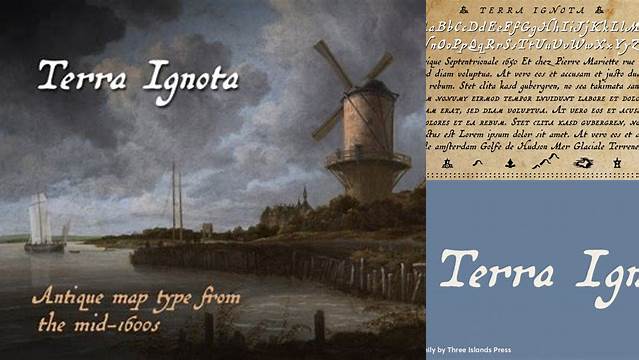
Terra Ignota Font: Download For Free & Unleash Creativity
Hey design enthusiasts! Ever stumbled upon a font that just screams a certain vibe, making your projects instantly cooler? Well, let me introduce you to Terra Ignota font, a typeface that’s been making waves in the design community. If you’re on the hunt for a font that’s both unique and versatile, and, guess what, Terra Ignota font free download options are out there, you’re in for a treat! This font isn't just a bunch of letters; it’s a tool that can elevate your branding, web designs, posters, and so much more. Let’s dive deep into why this font is a must-have and how you can get your hands on it.
Exploring the Allure of Terra Ignota Font
The world of typography is vast and exciting, and finding that perfect font can feel like discovering hidden treasure. The Terra Ignota font is precisely that kind of discovery for many designers. Its name, Latin for “unknown land,” hints at its adventurous and exploratory nature, making it ideal for projects that aim to evoke a sense of mystery, discovery, or even a touch of the fantastical. When you first encounter this font, you’ll likely notice its distinct character – perhaps sharp serifs, unexpected curves, or a bold presence that commands attention. This uniqueness is what sets it apart from the more common, overused fonts. It’s the kind of typeface that makes people pause and ask, “What font is that?” And that, my friends, is the power of distinctive typography. Whether you're designing a logo for a startup exploring uncharted territories, creating a poster for a science fiction film, or crafting an invitation for an adventurous event, the Terra Ignota font offers a visual language that speaks volumes. Its versatility means it can adapt to various contexts, from headings that demand immediate impact to body text that maintains readability while retaining its unique flair. Many designers find that incorporating a font like Terra Ignota into their toolkit opens up new creative avenues, allowing them to push boundaries and create truly memorable visual experiences. The initial impression is crucial, and this font often leaves a lasting one, sparking curiosity and engagement with the audience. It’s not just about aesthetics; it's about the story the font helps to tell. The careful construction of each glyph contributes to a cohesive and visually appealing whole, ensuring that your message is not only conveyed but also felt. The exploration of its different weights and styles, if available, can further enhance its applicability, offering options for both subtle nuances and bold statements within a single design project. This depth of character makes the Terra Ignota font a valuable asset for anyone looking to add a distinctive touch to their creative endeavors, truly embodying its name by leading the eye into new visual territories.
The Unique Design Characteristics of Terra Ignota
What makes the Terra Ignota font so special? It’s all in the details, guys! This font isn’t just another run-of-the-mill typeface; it boasts a set of design characteristics that give it a distinct personality. Let’s break down what makes it stand out. Often, you’ll find that fonts named “Terra Ignota” or similar have an adventurous, perhaps slightly rugged or exotic feel. This could manifest in several ways. Maybe it features sharp, angular serifs that give it a bold, almost ancient or exploratory look, reminiscent of old maps or expedition journals. Or perhaps it has unexpected ligature ligatures or flourishes that add a touch of handcrafted uniqueness, suggesting a journey into the unknown. The letterforms themselves might have a particular slant or a unique construction that deviates from standard sans-serif or serif structures, lending an air of mystery or intrigue. Consider the weight and spacing – is it a dense, impactful font that’s perfect for headlines, or does it have a more open, airy feel that works well for body text in specific contexts? The way the characters connect (or don’t connect) can also contribute significantly to its overall aesthetic. Some versions might play with distressed textures, giving it a worn, vintage feel, while others might be crisp and modern, emphasizing a futuristic exploration theme. When you’re looking at a Terra Ignota font free download, pay attention to these subtle (and sometimes not-so-subtle) design choices. Are the lowercase letters unusually tall? Do the uppercase letters have dramatic contrasts in thick and thin strokes? Does it include a set of special characters or symbols that further enhance its theme? These elements combine to create a font that doesn’t just display text but communicates a feeling – one of discovery, exploration, and the allure of the uncharted. Understanding these unique design characteristics helps you appreciate the font more and, more importantly, utilize it effectively in projects where you want to evoke a similar sense of wonder and adventure. It’s this careful craftsmanship that transforms a simple collection of characters into a powerful design tool, ready to guide your audience through your own creative